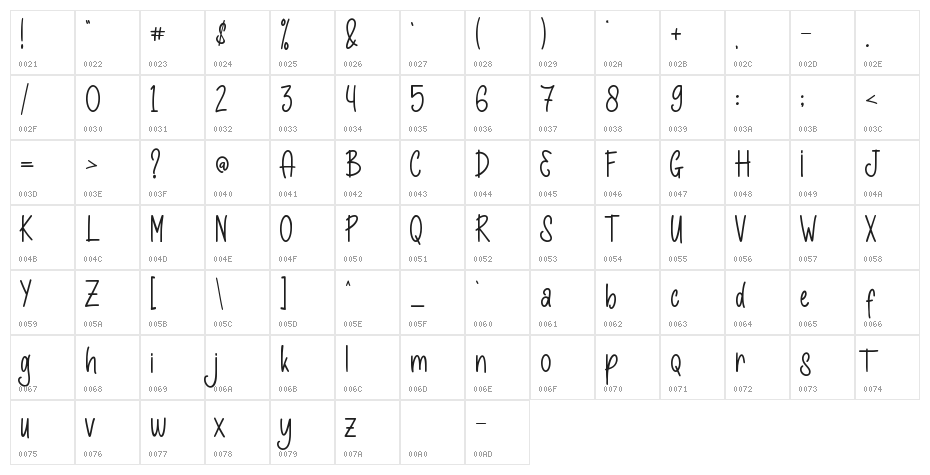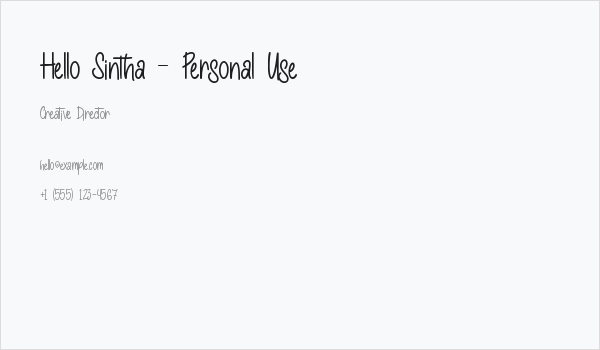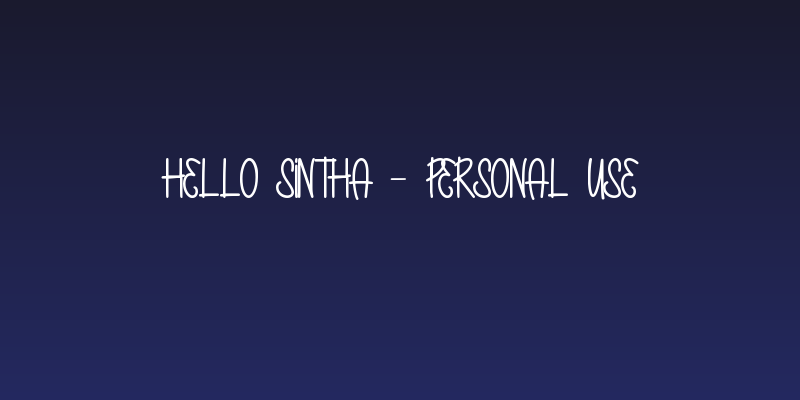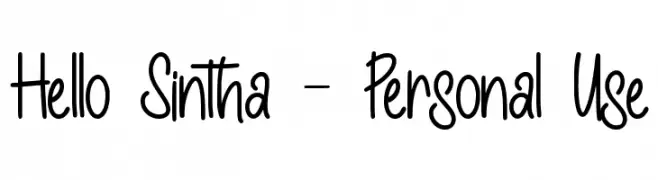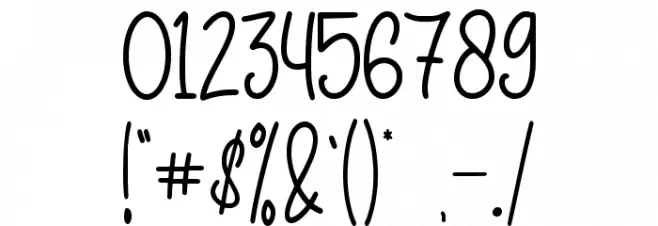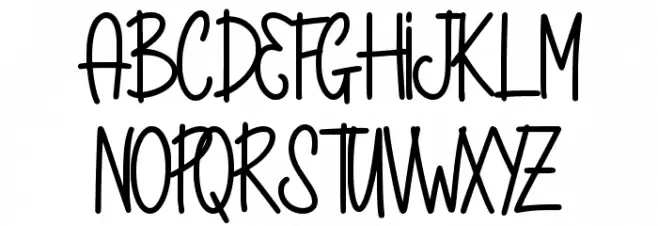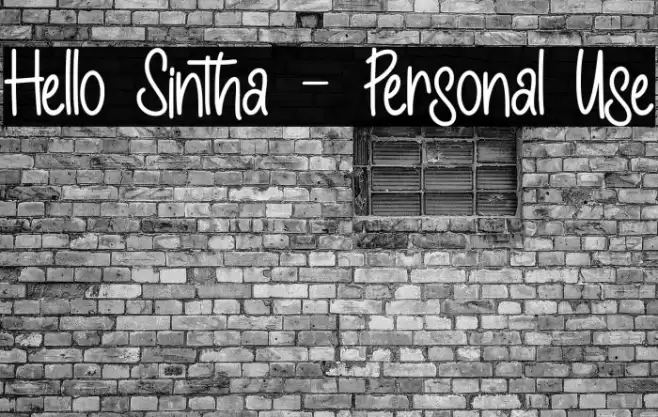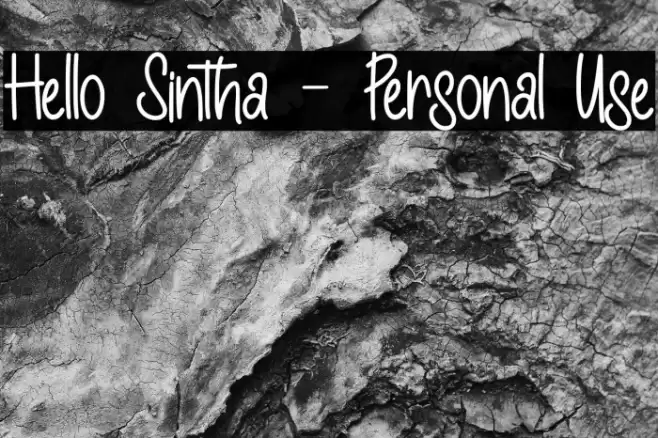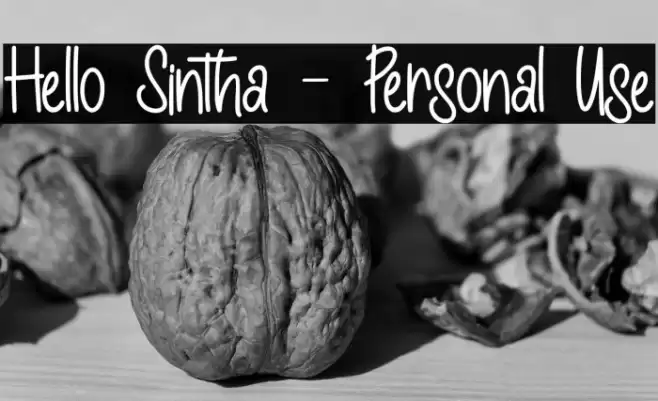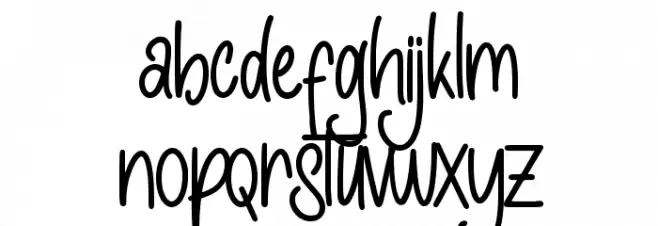
Hello Sintha - Personal Use Font
Hello Sintha - Personal Use Description
A playful, handwritten style font with irregular, whimsical letterforms that resemble casual, childlike handwriting.
| Overall Style | Playful, Casual, Whimsical |
| Use Case | Children's books, casual invitations, playful branding, creative projects. |